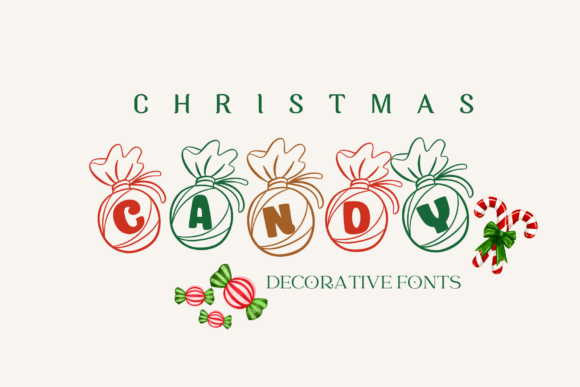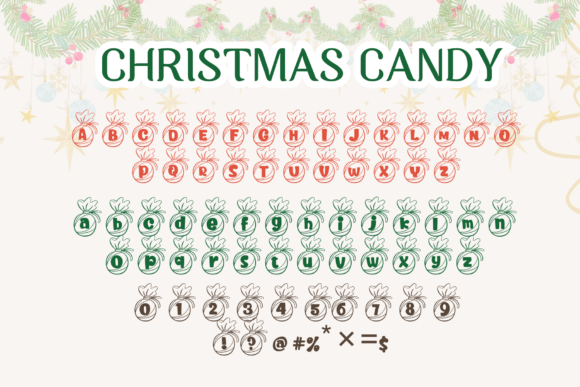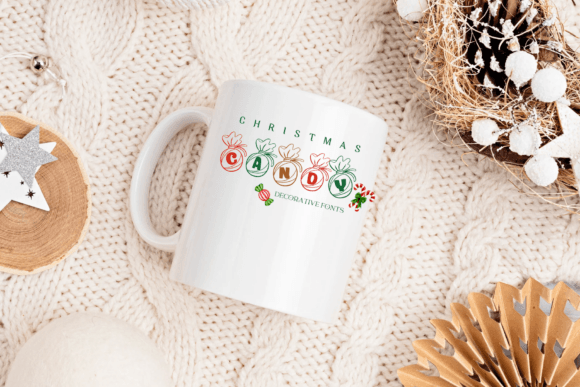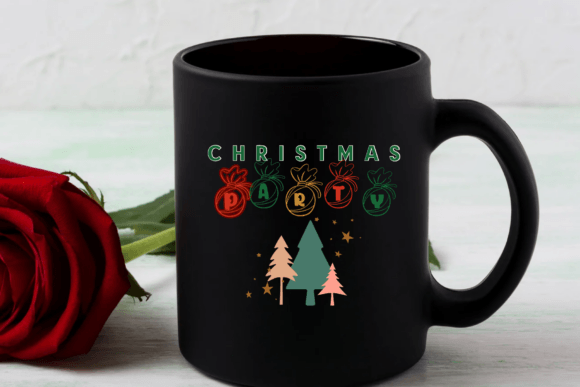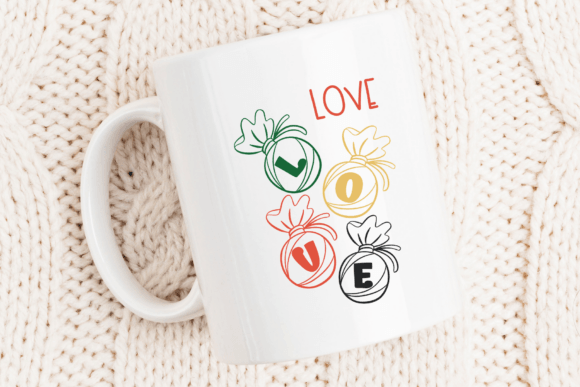
The Sweetest Typography: Unwrapping Christmas Candy Font
As a designer, have you ever found yourself staring at a blank canvas, struggling to find the perfect font to capture the essence of the holiday season? The festive lights, the cozy atmosphere, and the joyful spirit – all waiting to be distilled into a single, magical typeface. That’s when I stumbled upon Christmas Candy Font, and it was love at first sight!
This delightful font is more than just a pretty face; it’s a clever design that turns letters into whimsical candy wrappers, infusing your text with a playful, festive vibe. Whether you’re creating holiday decorations, gift tags, or festive social media posts, Christmas Candy Font is the perfect tool to bring a smile to your audience’s faces.
For designers, this font is a treasure trove of creative possibilities, offering a unique way to add a dash of sweetness and personality to your projects. So, let’s unwrap the magic of Christmas Candy Font and explore its endless possibilities together!
Key Features of Christmas Candy Font
- Unique Characteristics: The font features a playful, hand-drawn design with a mix of bold and cursive elements, giving it a festive and whimsical feel.
Designer Review: Christmas Candy Font
Overall, I think Christmas Candy Font is a fun and playful typeface that’s perfect for holiday projects. ✨ The whimsical design and bold lines make it ideal for creating festive and eye-catching graphics. The font’s varied weights and styles also provide a lot of flexibility for designers to get creative.
One of the standout features of Christmas Candy Font is its consistency across different sizes and resolutions. ✨ It looks great both large and small, making it suitable for a wide range of applications, from social media graphics to print materials.
However, I do have a few concerns about the font’s limitations. ⚠️ Firstly, the font is quite ornate, which can make it difficult to read in certain contexts. Additionally, the design may not be suitable for professional or formal projects, as it can come across as too playful or childish.
- Whimsical and playful design
- Consistent across different sizes and resolutions
- Varied weights and styles
- Not suitable for formal or professional projects
- Can be difficult to read in certain contexts
Overall, I think Christmas Candy Font is a great choice for designers looking to add a touch of festive fun to their projects. Just be mindful of its limitations and use it in contexts where its playful design will shine.
The Christmas Candy Font is ideal for creating festive and playful designs for holiday cards, gift tags, and social media posts.
For best results, use the font in conjunction with bright and bold colors to create a lively and eye-catching design.